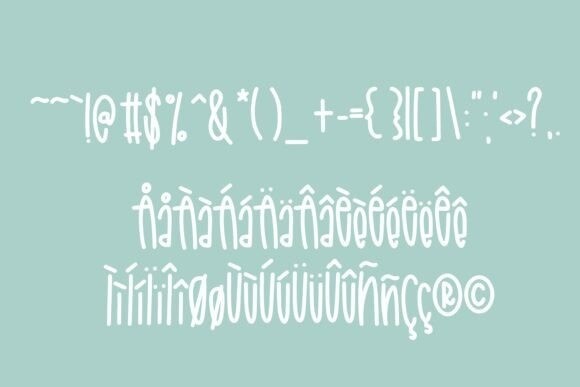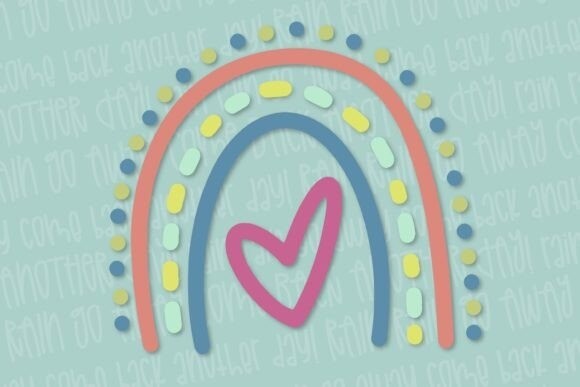
Rainy April Font
Rainy April Font is a fun, playful font perfect for children’s designs, school projects, or any creative work needing a cheerful and whimsical touch. Featuring soft, rounded letters with a hand-drawn style, it captures the spirit of rainy days with charming doodles of rainbows, raindrops, and clouds. Ideal for posters, greeting cards, invitations, and digital art, this font will add a joyful, weather-inspired flair to any project. Rainy April also includes a variety of special characters and symbols for versatile use.